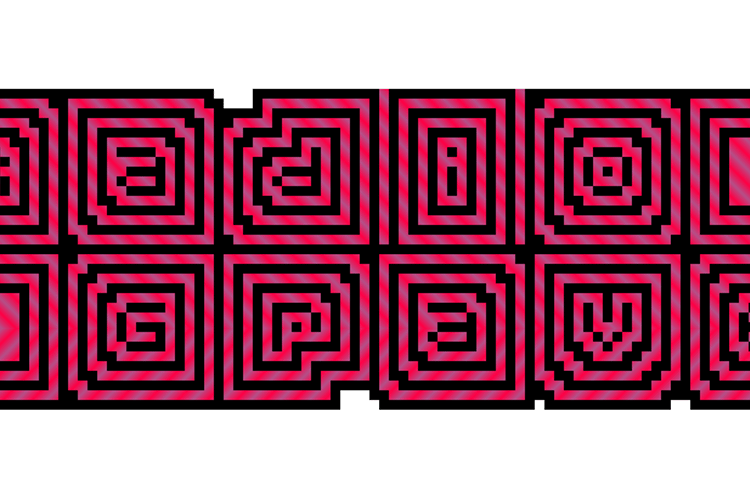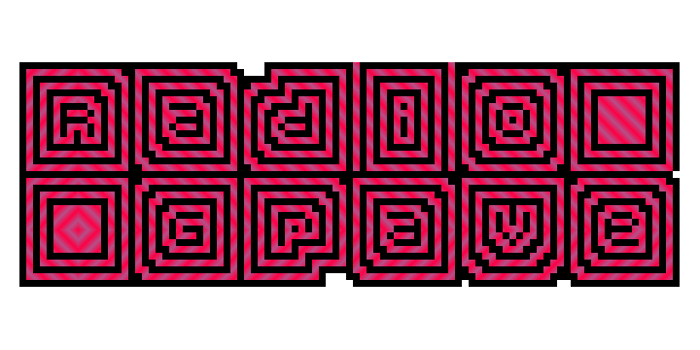
Radio Grave Font
Empty Regular Style
Shaded Regular Style
Three multi-outline designs with intentional aliasing. At the original size, they look nicely textured. The optical illusions become more harsh as one zooms in.
Added a new variant - Radio Grave Shaded. 😃